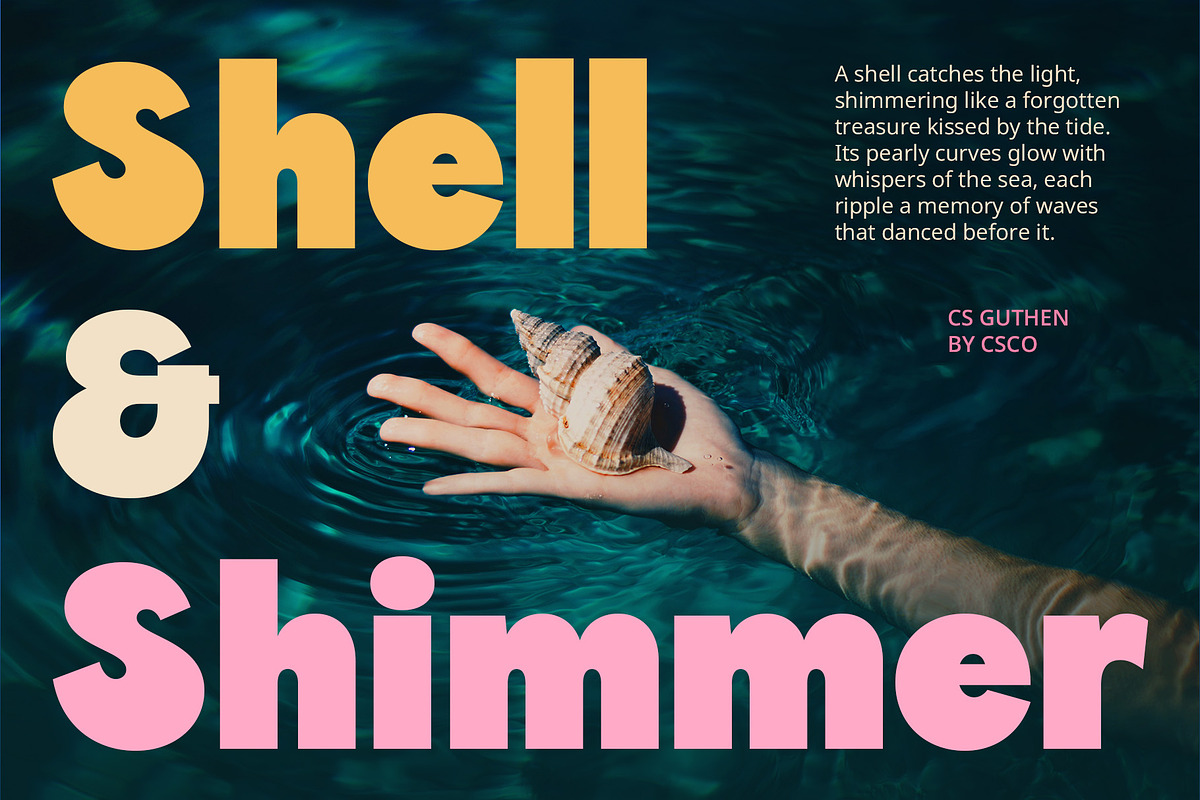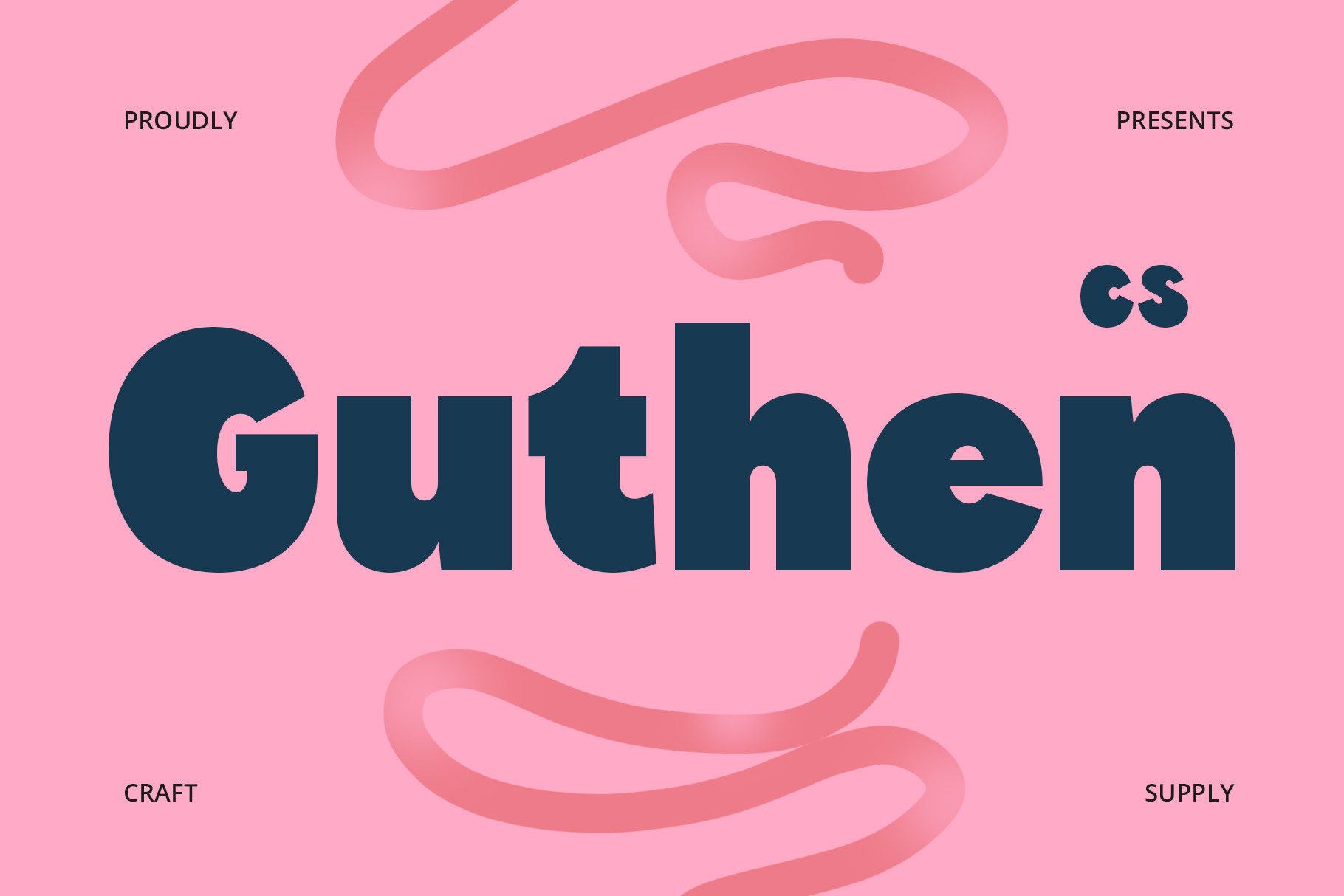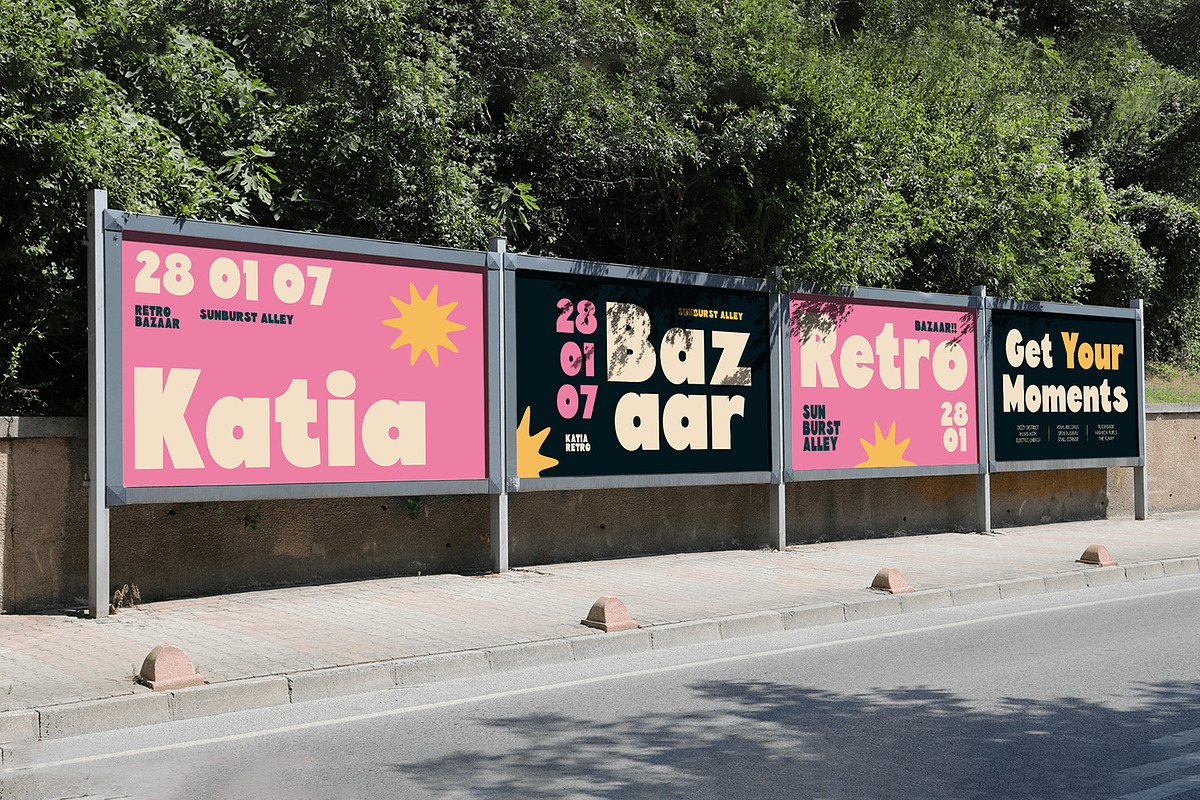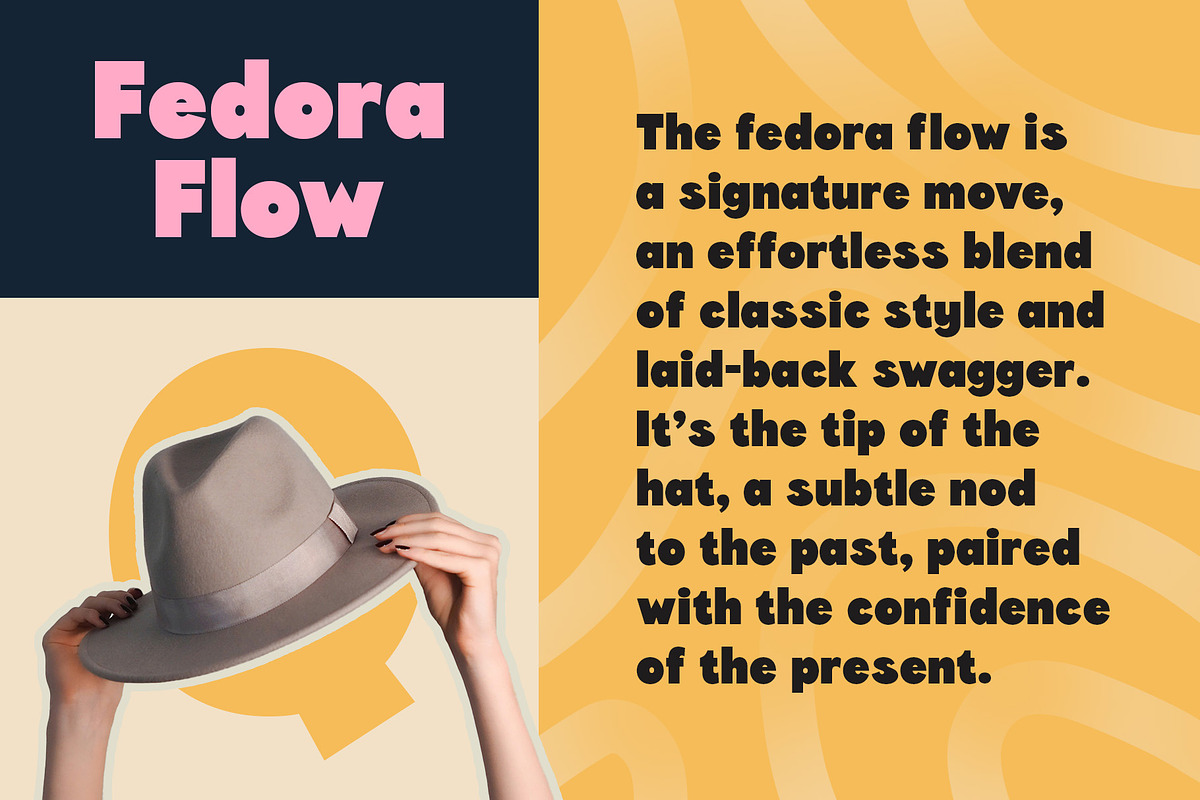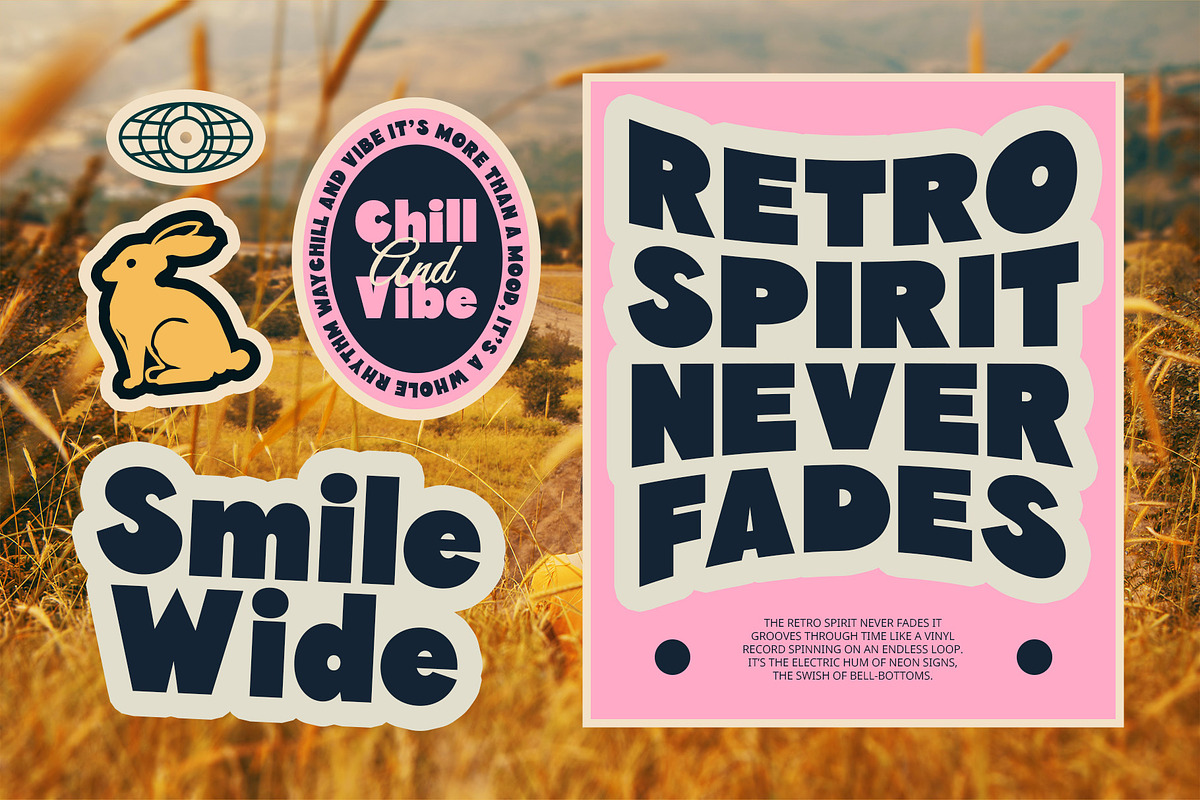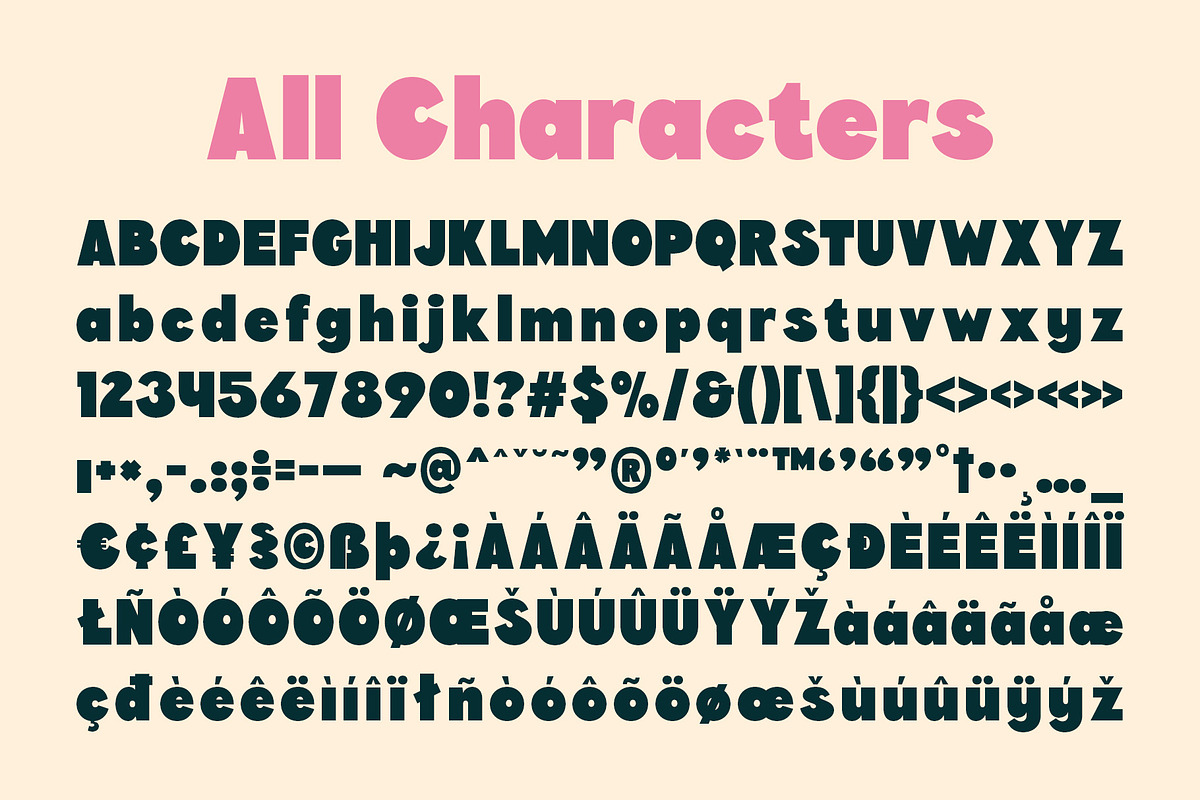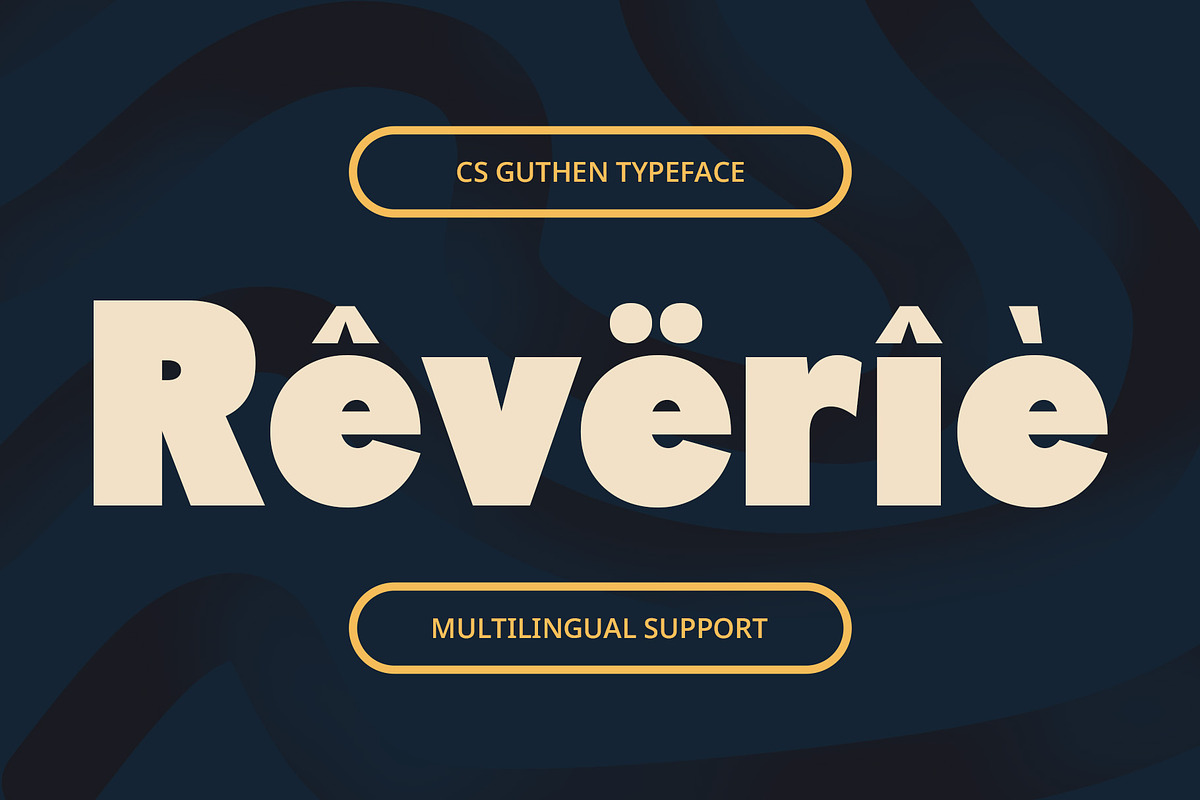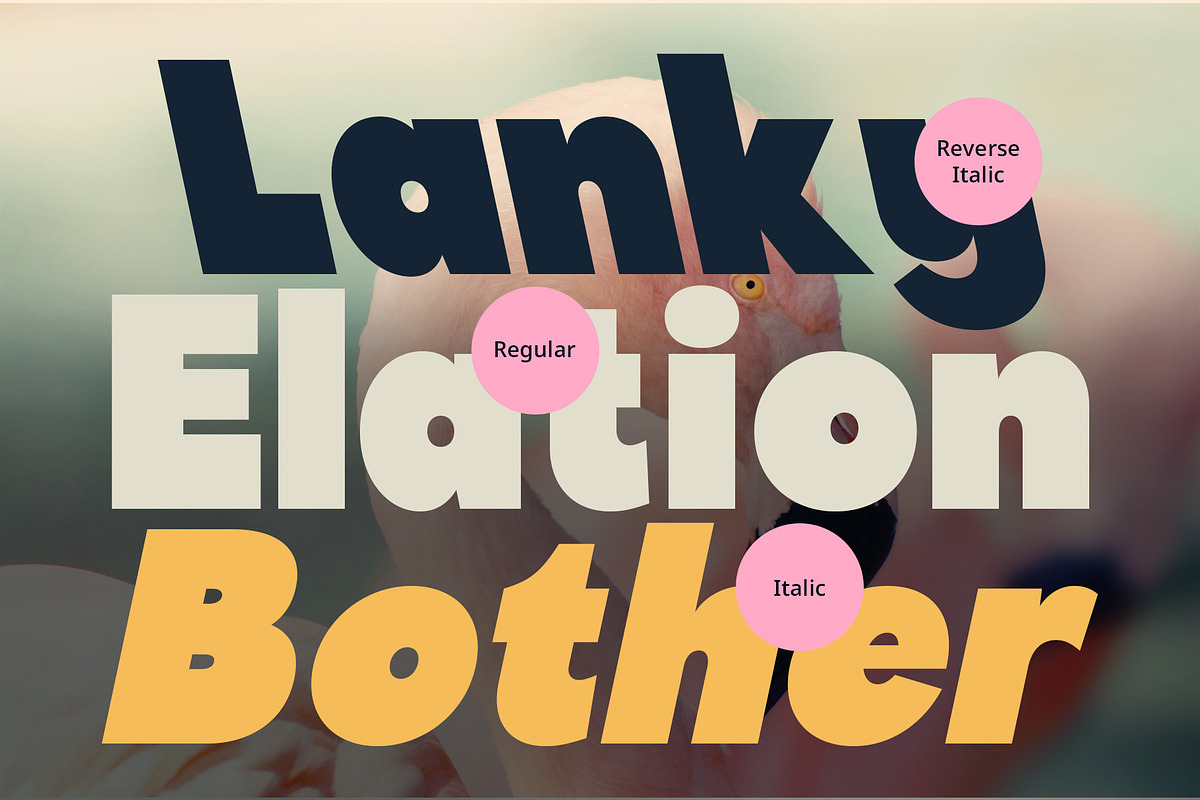
CS Guthen – Bold Font
CS Guthen – Bold Font: A Playful and Energetic Sans-Serif Typeface
Bold & Fun Design CS Guthen is a modern sans-serif font with a bold, cute, and funky character that radiates energy and joy. Its rounded, light-hearted shapes are designed to evoke a sense of happiness, playfulness, and vibrancy, making it an ideal choice for projects that need to capture attention with a lively and cheerful vibe. The font’s balance of strong yet soft lines ensures readability while maintaining a fun, engaging aesthetic.
Perfect for Youthful and Creative Projects CS Guthen’s lively character makes it perfect for designs targeting younger audiences or projects that embrace themes of creativity and joy. Whether it’s event posters, social media campaigns, or product packaging, this font adds a touch of playful charm to any design. Its bold yet approachable design ensures that it stands out in both print and digital formats, creating an instant connection with viewers.
Versatile & Engaging for Various Applications From dynamic branding and merchandise to energetic event promotions, CS Guthen brings a unique, engaging element to your designs. It is especially effective in projects meant to inspire fun, creativity, and positivity, ensuring a memorable visual identity that resonates with the audience. Whether you are creating an eye-catching ad or a vibrant product label, CS Guthen delivers a sense of excitement and playfulness that is sure to captivate.
- CS Guthen Regular
- CS Guthen Italic
- CS Guthen Reverse Italic